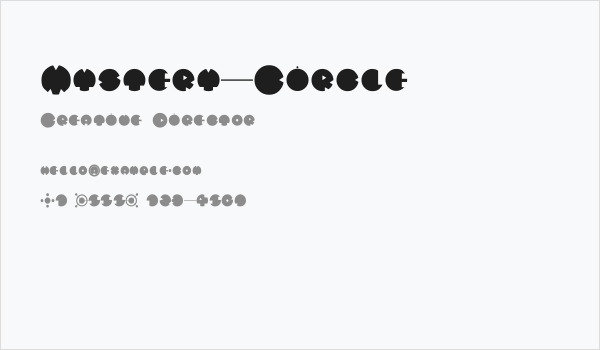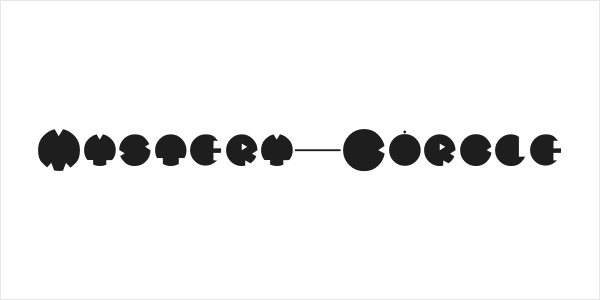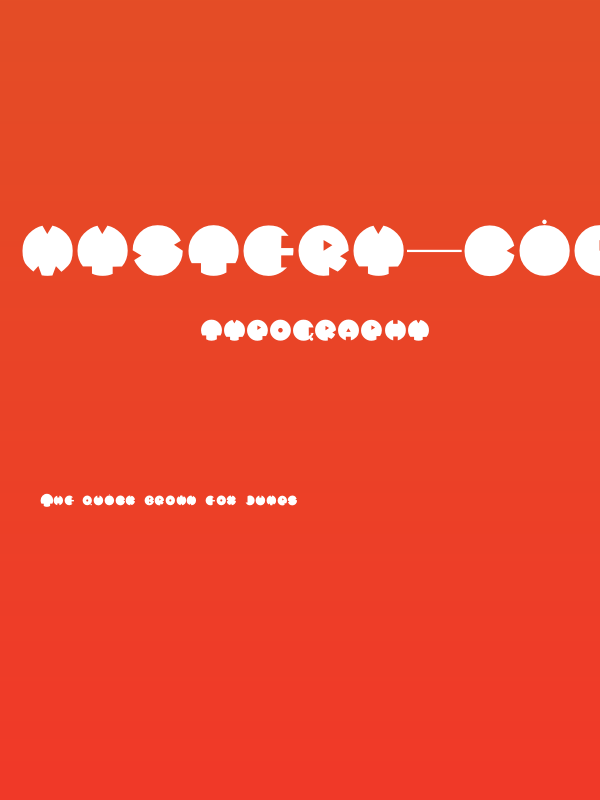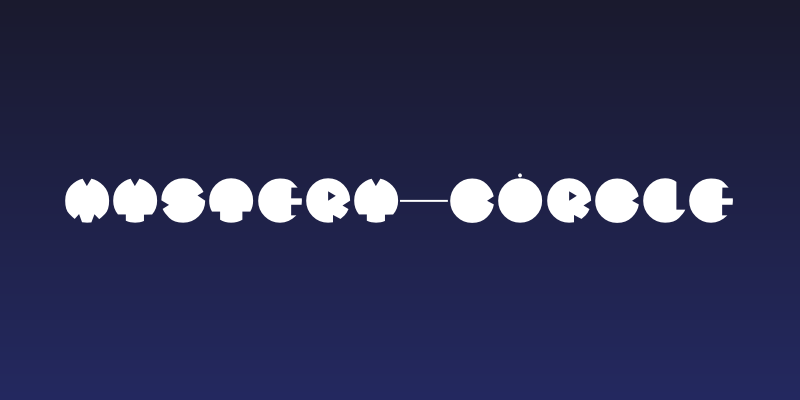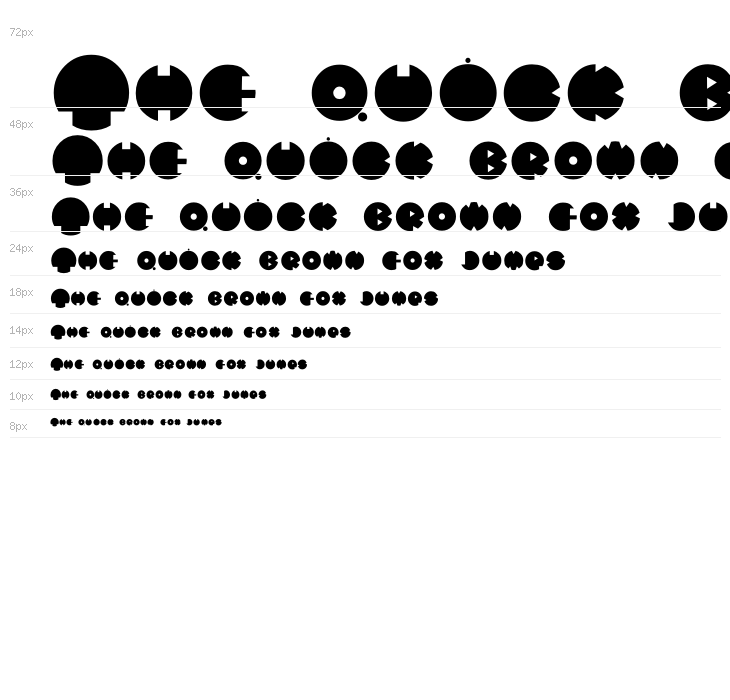
Mystery-Circle Font
Mystery-Circle Description
This font features a unique and bold design with characters formed primarily from circular shapes. Each letter and number is crafted with a combination of solid circles and geometric cutouts, creating a futuristic and abstract appearance. The design is consistent across uppercase, lowercase, and numeric characters, maintaining a cohesive look. Special characters are also included, following the same circular motif with additional decorative elements. This font stands out with its high visual impact and modern aesthetic, making it suitable for creative and artistic projects.
| Proposed Projects | Ideal for sci-fi themed designs, modern art posters, innovative branding, and digital media projects. |